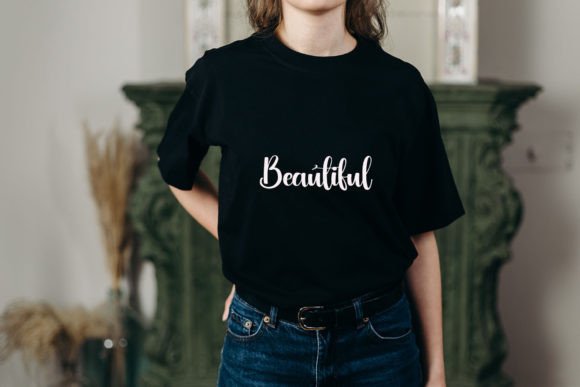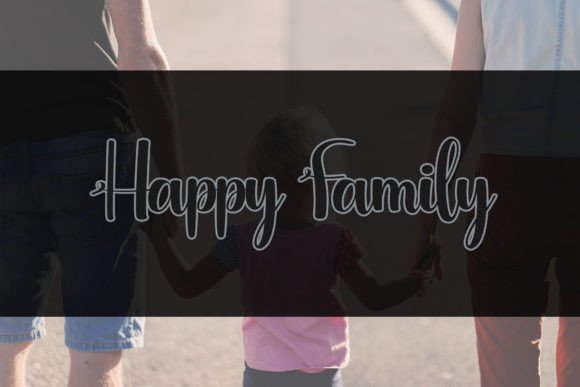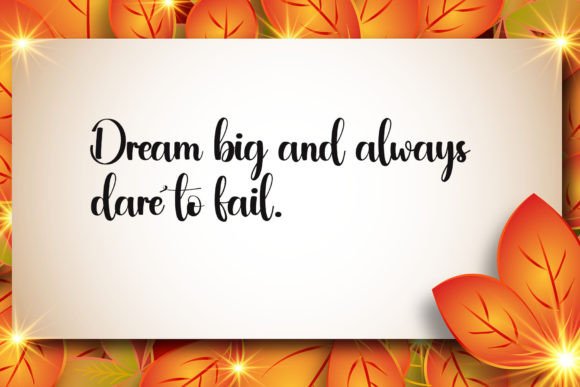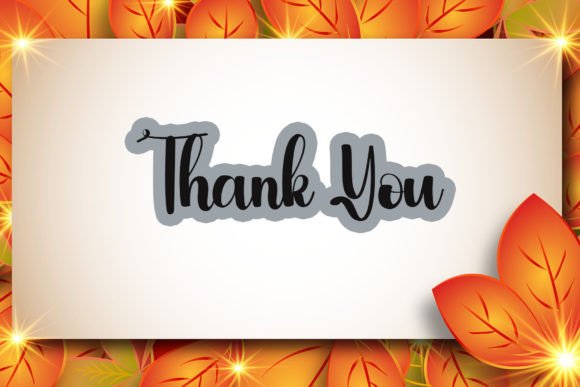
Introducing Grandma Font: A Timeless and Versatile Handwritten Script
Are you a designer or crafter looking for a font that exudes warmth, simplicity, and a touch of nostalgia? Look no further than Grandma Font, a classic and simple handwritten script that’s perfect for a wide range of creative projects. In this article, we’ll dive into the world of Grandma Font, exploring its unique characteristics, uses, and benefits.
The Charm of Grandma Font
Grandma Font is a beautifully crafted handwritten script that’s reminiscent of a bygone era. Its random and free style gives it a unique, organic feel that’s both charming and approachable. The font’s simplicity makes it easy to read and understand, while its classic appeal ensures it will never go out of style.
Uses for Grandma Font
One of the best things about Grandma Font is its versatility. It’s suitable for a wide range of applications, including:
• Logotype and branding: Create a lasting impression with a custom logo that showcases your brand’s personality.
• Headline font: Grab attention with bold, eye-catching headlines that set the tone for your content.
• Corporate identity: Establish a strong brand identity with Grandma Font’s professional yet approachable feel.
• Brand identity: Use Grandma Font to create a consistent visual brand language that resonates with your audience.
• Apparel industry: Add a personal touch to your clothing and accessories with custom typography.
• Poster and print design: Create stunning posters, flyers, and brochures that showcase your message.
• Music, movie, and game: Add a touch of nostalgia to your creative projects with Grandma Font’s classic appeal.
• Magazine and book publishing: Use Grandma Font to create engaging and easy-to-read content.
• Comic and cartoon: Bring your characters to life with custom typography that matches their personality.
• YouTube, Instagram, and website: Establish a strong visual identity across social media and online platforms.
Benefits of Using Grandma Font
So why choose Grandma Font for your creative projects? Here are just a few benefits:
• Easy to read: Grandma Font’s simple and clear design makes it easy to read, even at small sizes.
• Versatile: Use Grandma Font across a wide range of applications, from digital to print.
• Timeless: Grandma Font’s classic appeal ensures it will never go out of style.
• Unique: Grandma Font’s random and free style gives it a unique, organic feel that’s hard to find in other fonts.
Tips for Using Grandma Font
To get the most out of Grandma Font, here are a few tips to keep in mind:
• Experiment with sizes: Grandma Font looks great at a range of sizes, from small to large.
• Play with colors: Grandma Font’s simplicity makes it a great match for bold, bright colors.
• Mix and match: Combine Grandma Font with other fonts to create a unique visual style.
Grandma Font is a timeless and versatile handwritten script that’s perfect for designers and crafters looking for a font that exudes warmth and simplicity. With its classic appeal, ease of use, and versatility, Grandma Font is sure to become a staple in your font collection. So why wait? Download Grandma Font today and start creating beautiful, engaging designs that capture the hearts of your audience.